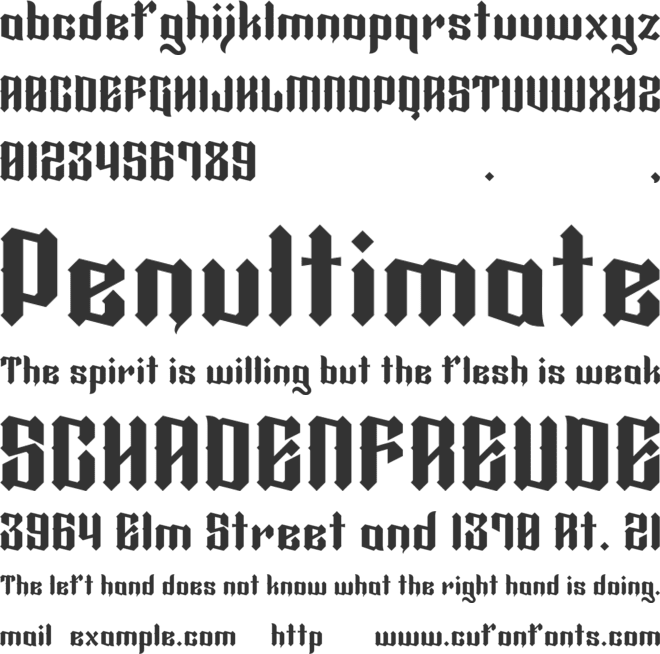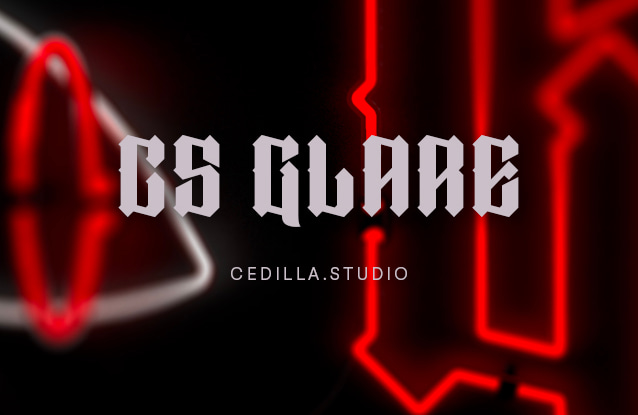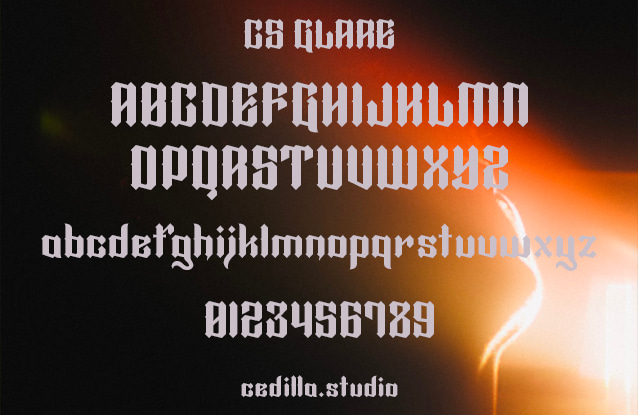
CS Glare Trial Font
Inspired by traditional black letter type styles, Glare uses a grid system comprised of a small selection of shapes creating a consistent structure throughout the typeface. Black letter typefaces are famously distinguished by their bold and sharp letter forms, so it was important to stay true to this principle by keeping the pointed edges of the squares for texture.